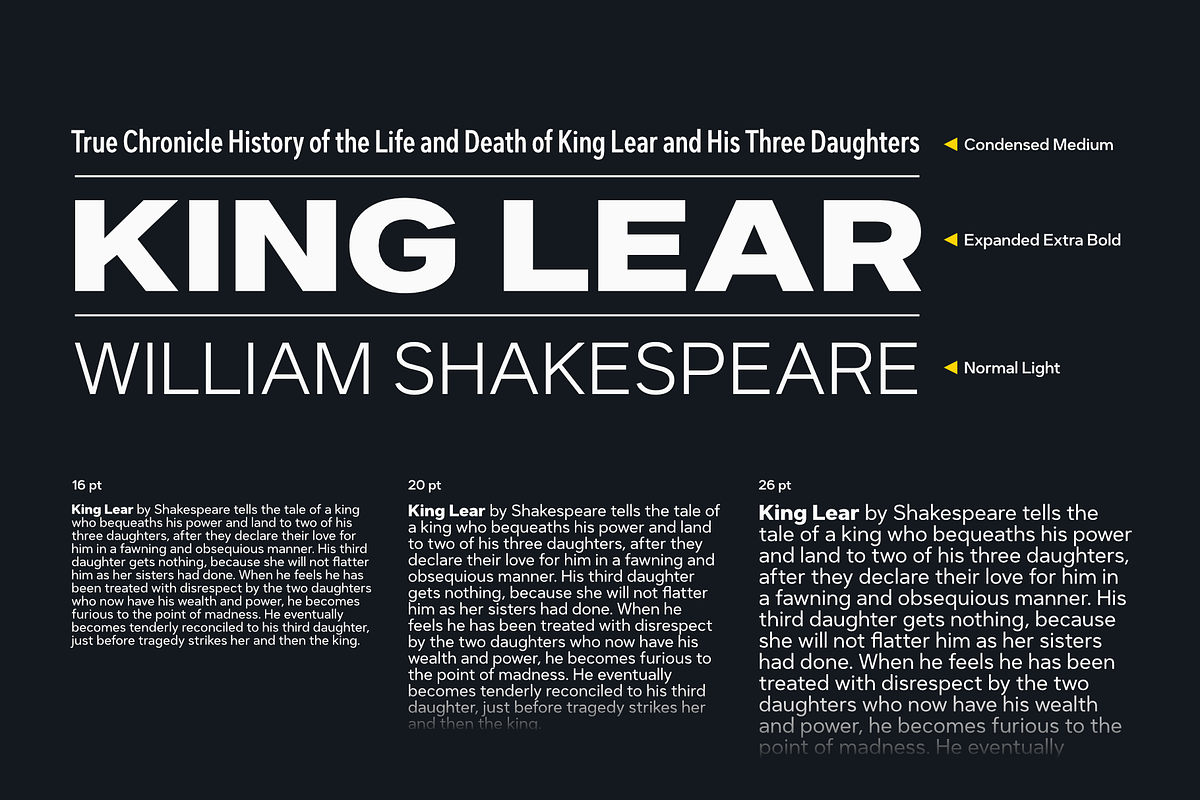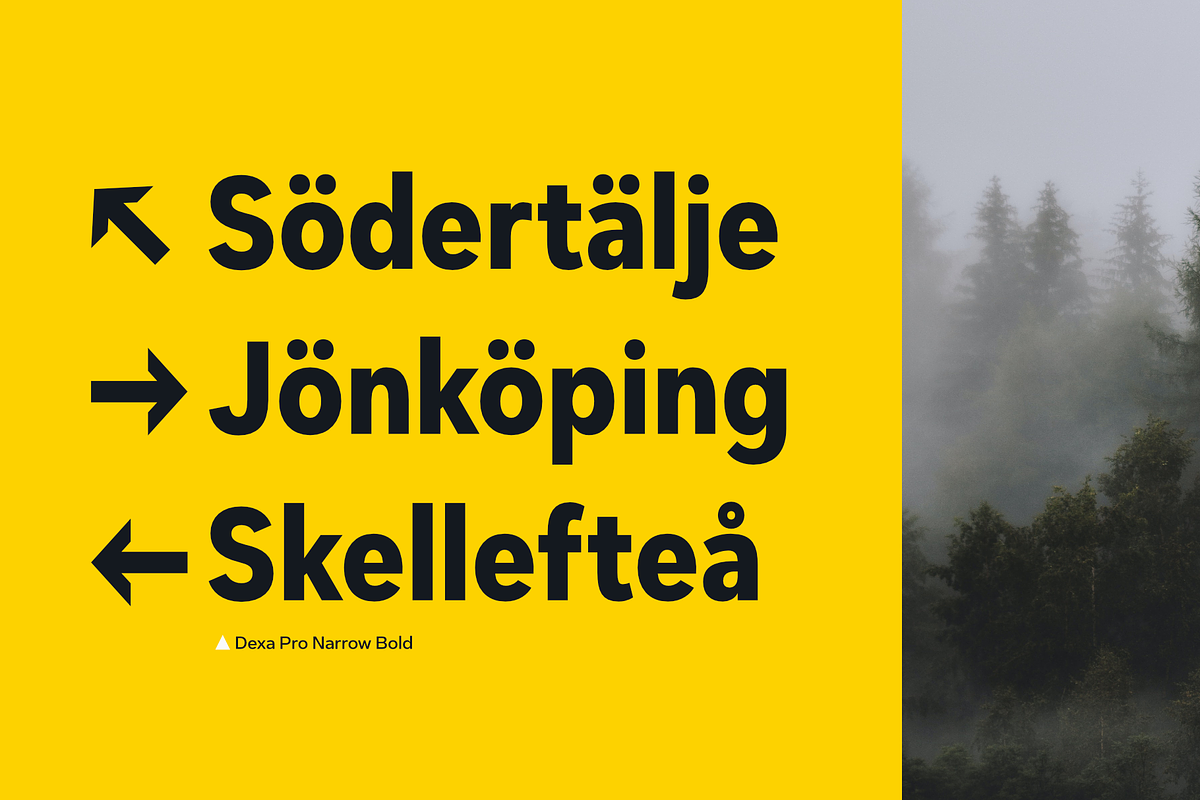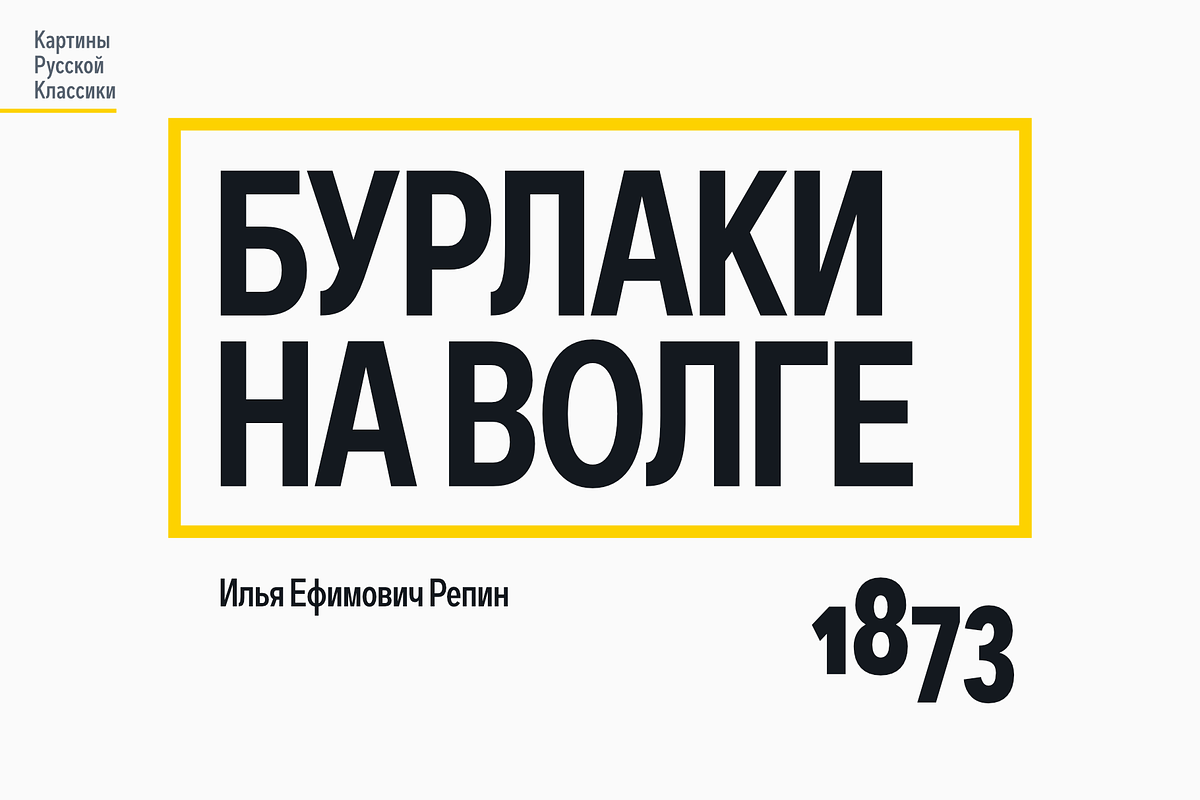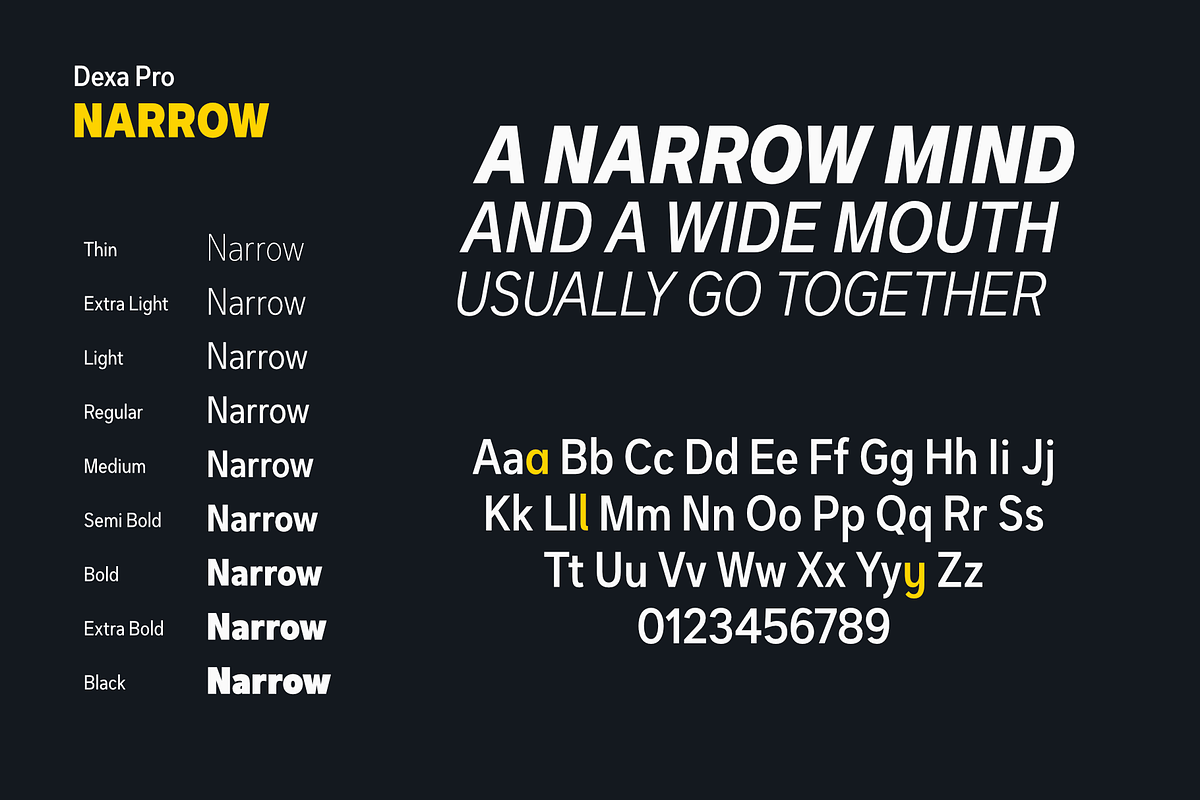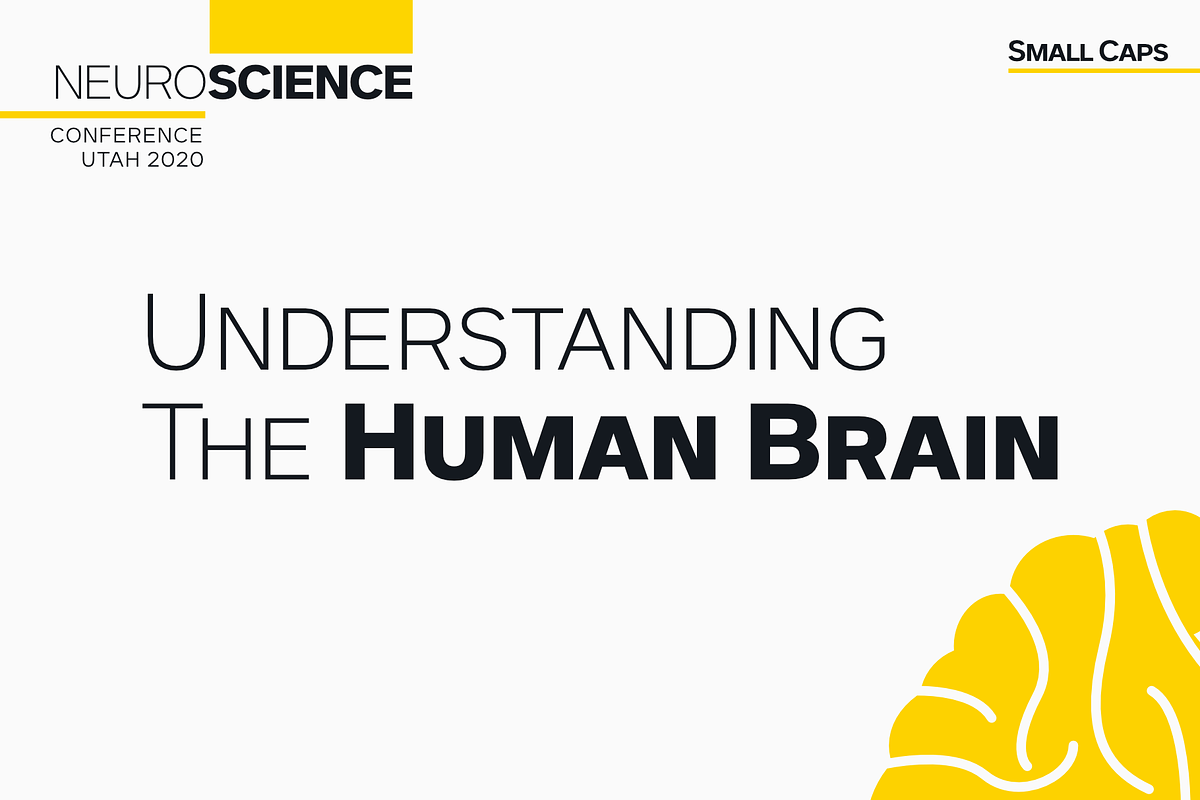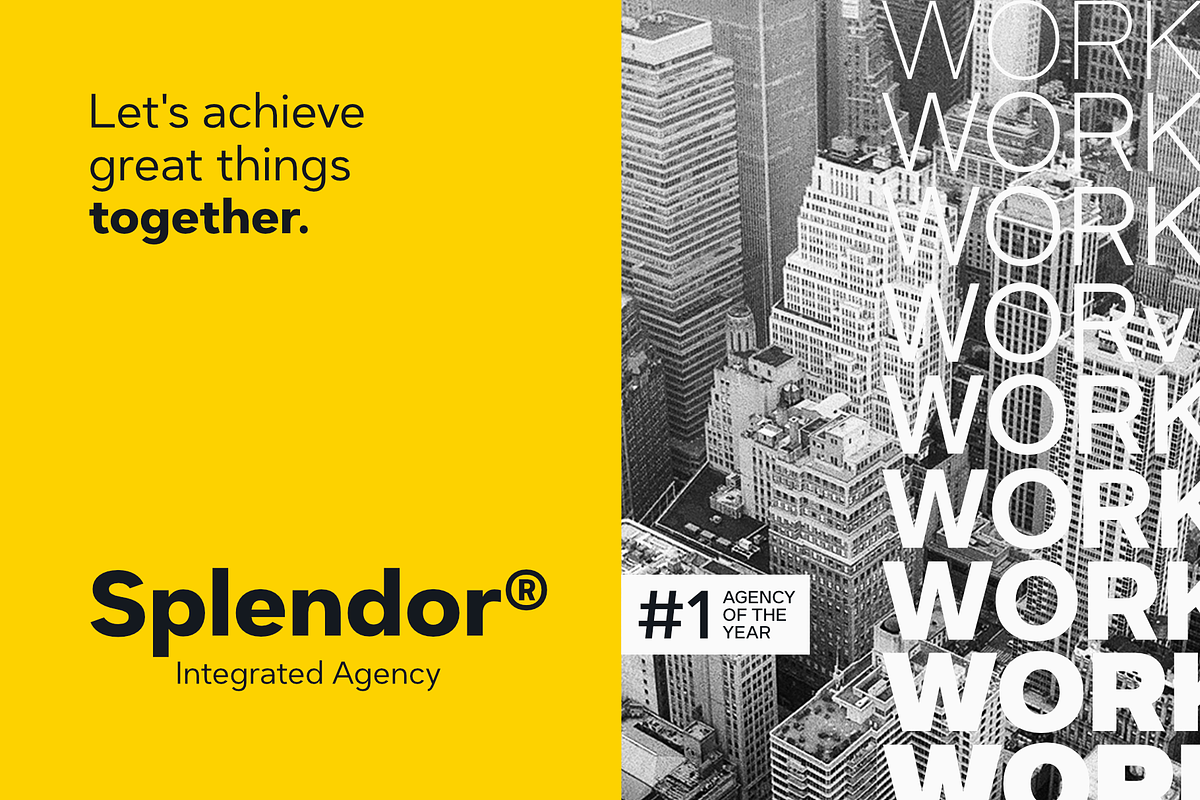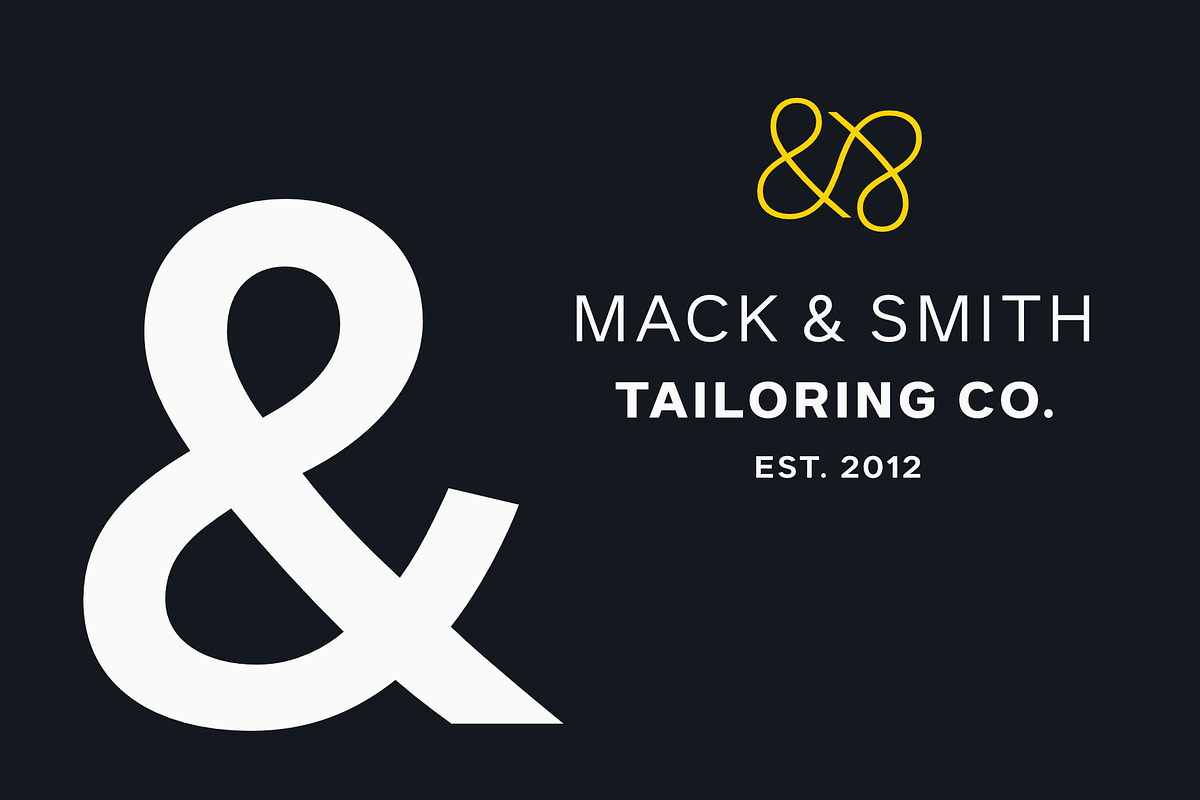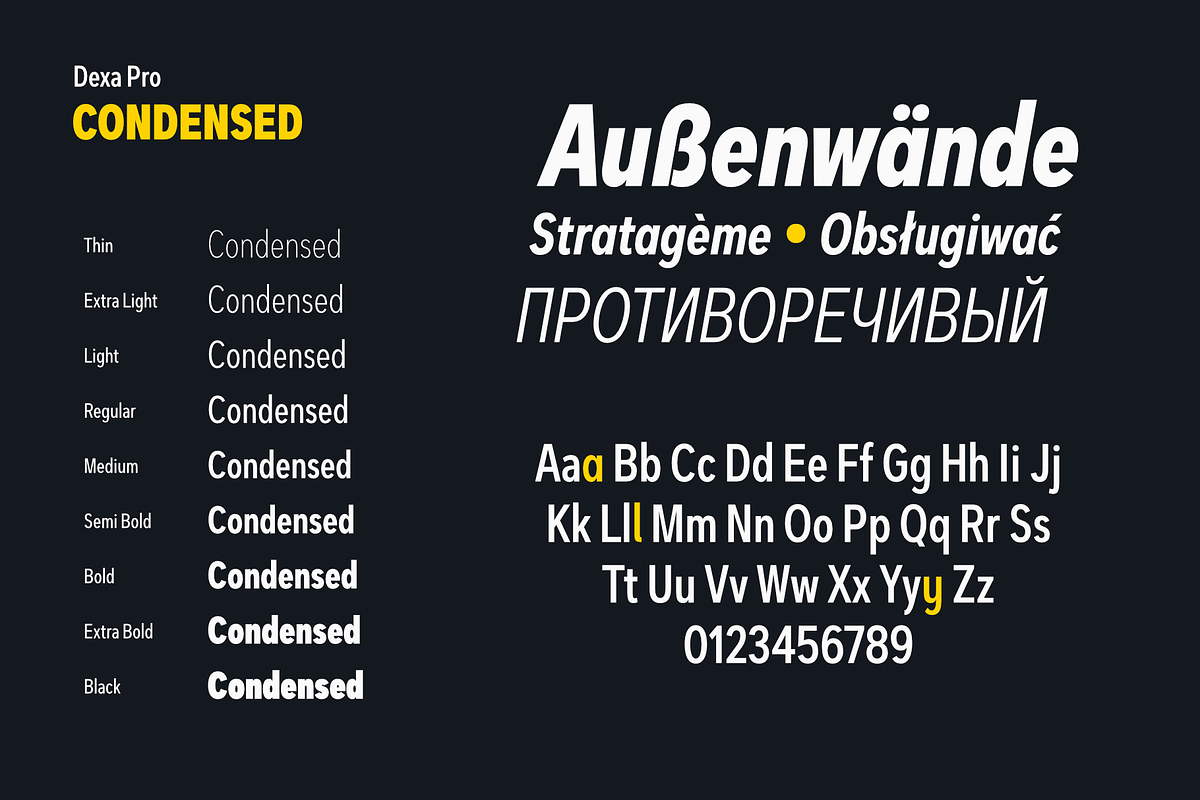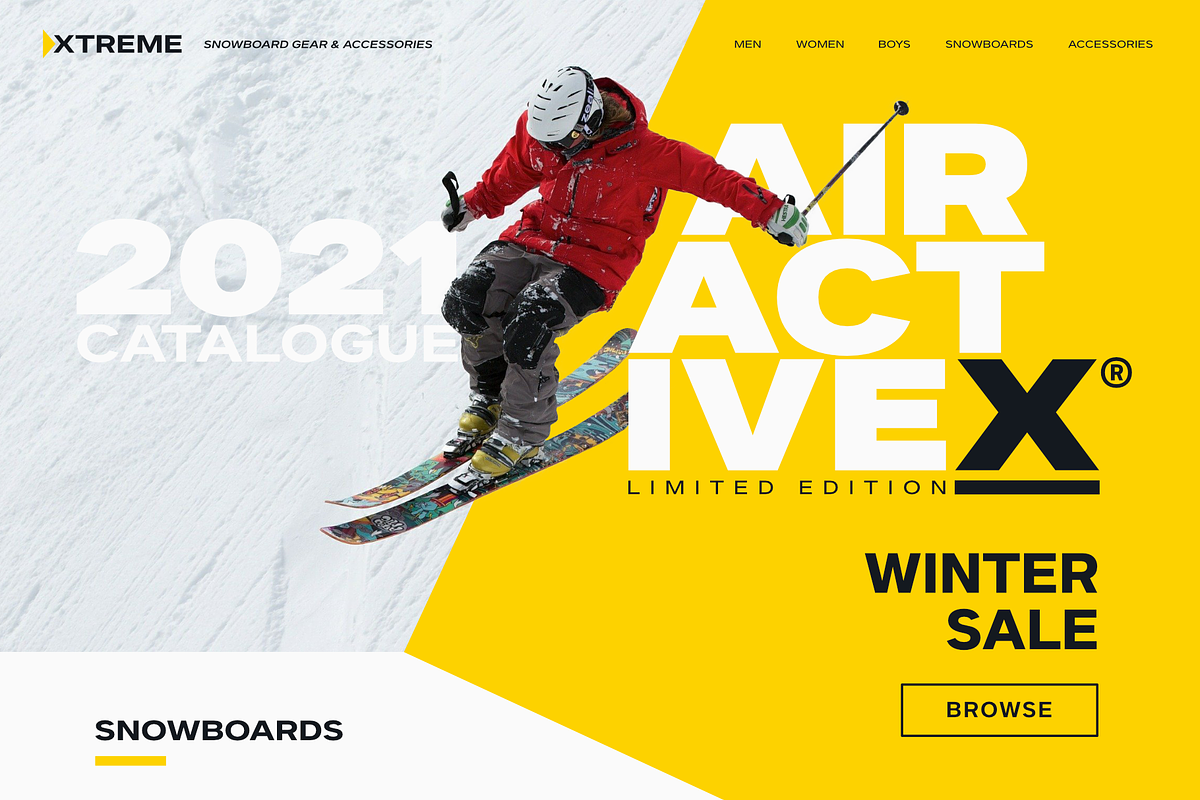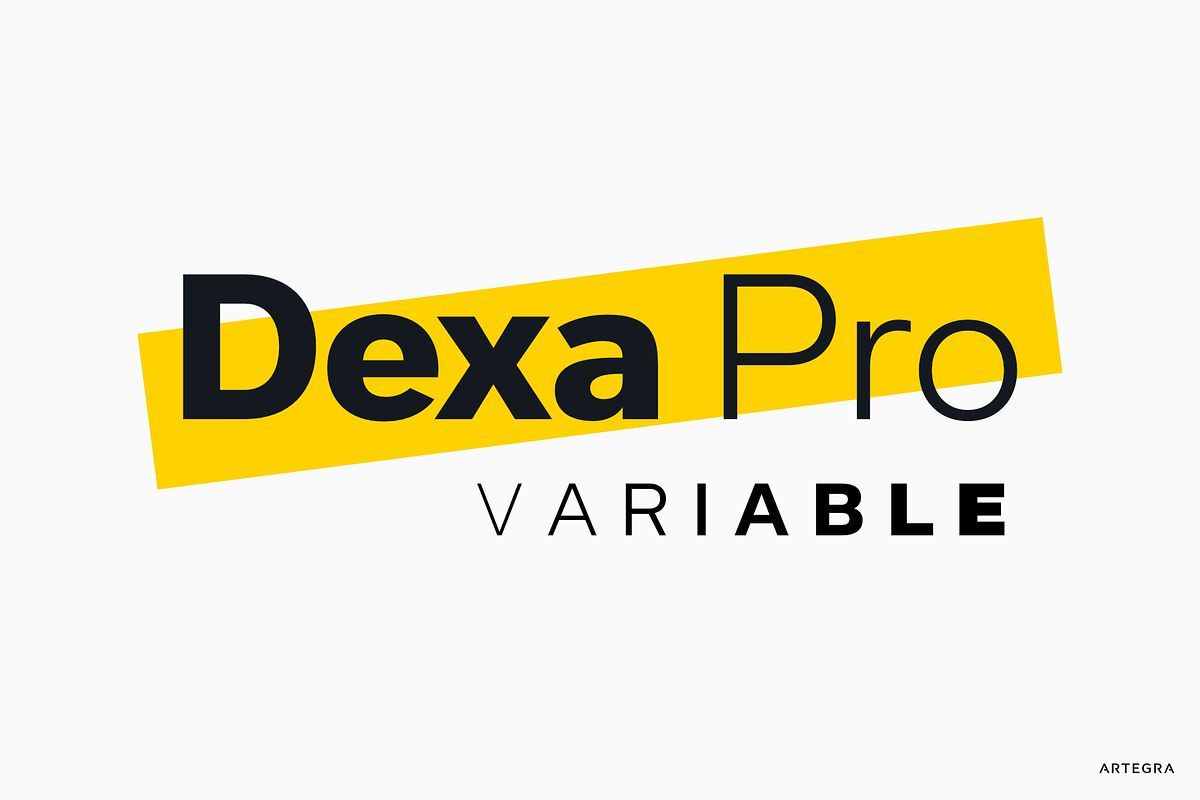
Dexa Pro Variable
Dexa Pro Variable is the variable version of the Dexa Pro superfamily that was designed by Ceyhun Birinci in 2020. Dexa Pro was designed with the idea to create a contemporary super family with inspiration from classic sans serif families. It's a workhorse family consisting of 72 fonts in condensed, narrow, normal and expanded widths. Each width has 18 fonts in thin to black weights, along with their true italic counterparts. With more than 770 glyphs per font, It offers a ton of language support from all the Latin languages to Cyrillic.
OpenType features: small caps, caps to small caps, alternates, old style figures, tabular lining, old style tabular lining, language localizations, ligatures, superscript, subscript, numerators, denominators, fractions, historical forms.